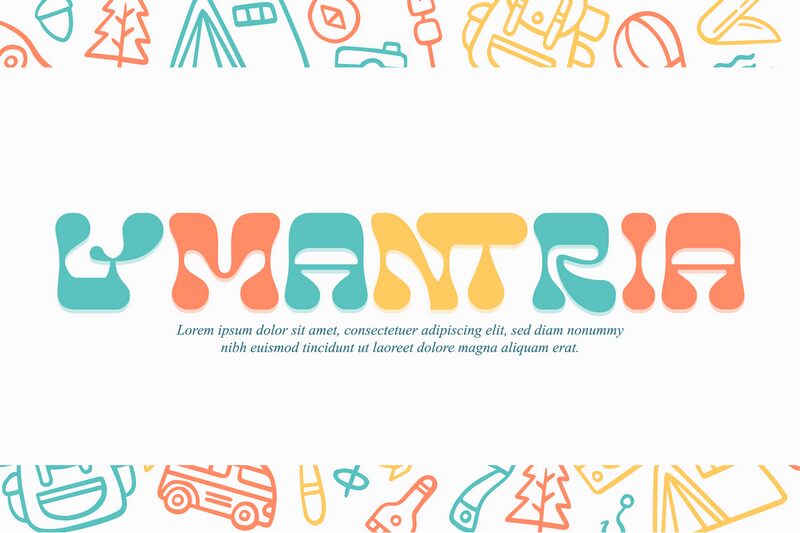
LYMANTRIA Demo Regular
Lymantria is a groovy bold display font designed by 177Studio. It’s a futuristic font that’s filled with geometric shapes and sharp edges. It also has a retro vibe; a look that was popular during the 60’s and 70’s.
This sans serif font is great for logotypes, headlines, poster art, invitations and flyers, web banners, business cards, as well as packaging design. You can use it for a science project or a futuristic movie, or you can put an adventurous twist on your travel videos using it for subtitles.